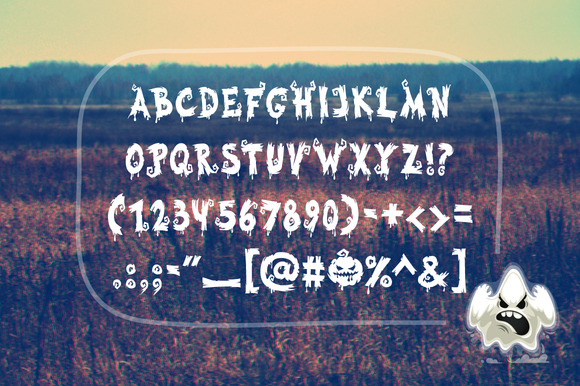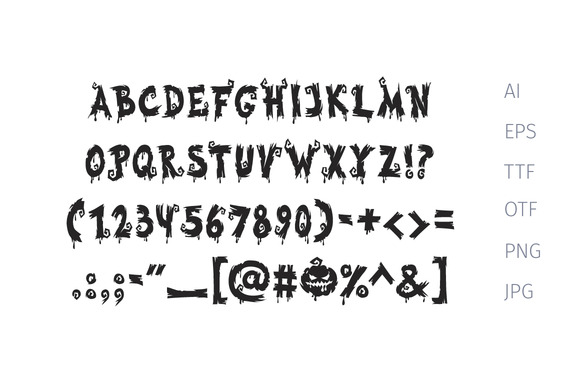
Unleash the Spook: Elevate Your Halloween Designs with the Perfect Font
Halloween is just around the corner, and for designers and crafters, it’s the perfect time to get creative with spooky and fun designs. Whether you’re working on invitations, decorations, or social media posts, having the right font can make all the difference. That’s where this Halloween font comes in – a versatile and editable collection that’s perfect for scary (and not-so-scary) designs.
Perfect for Scary (and Not-So-Scary) Designs
The Halloween font is designed to capture the essence of the spookiest time of the year. Its characters are crafted to evoke a sense of mystery, fright, and fun, making it perfect for:
- Halloween party invitations that set the tone for a night of thrills and chills.
- Social media posts that grab attention and create a buzz around your Halloween events or promotions.
- Decorations and signage that add a touch of spookiness to your Halloween displays.
- Merchandise, such as t-shirts, stickers, and posters, that cater to Halloween enthusiasts.
Whether you’re going for a classic, eerie feel or something more playful and whimsical, this Halloween font provides the perfect foundation for your designs.
Why Choose This Halloween Font?
In a sea of generic fonts, this Halloween font stands out for several reasons:
- Uniqueness: Its distinctive characters ensure your designs stand out from the crowd.
- Versatility: Use it across various projects, from digital graphics to print materials.
Tips for Using the Halloween Font
To get the most out of this Halloween font, consider the following tips:
- Experiment with Sizes and Colors: Play around with different sizes and colors to create visual interest and hierarchy in your designs.
- Combine with Images: Pair the font with Halloween-themed images or illustrations to create a cohesive and engaging design.
- Use in Digital and Print: Don’t limit yourself to just one medium. Use the font in both digital and print projects to maximize its utility.